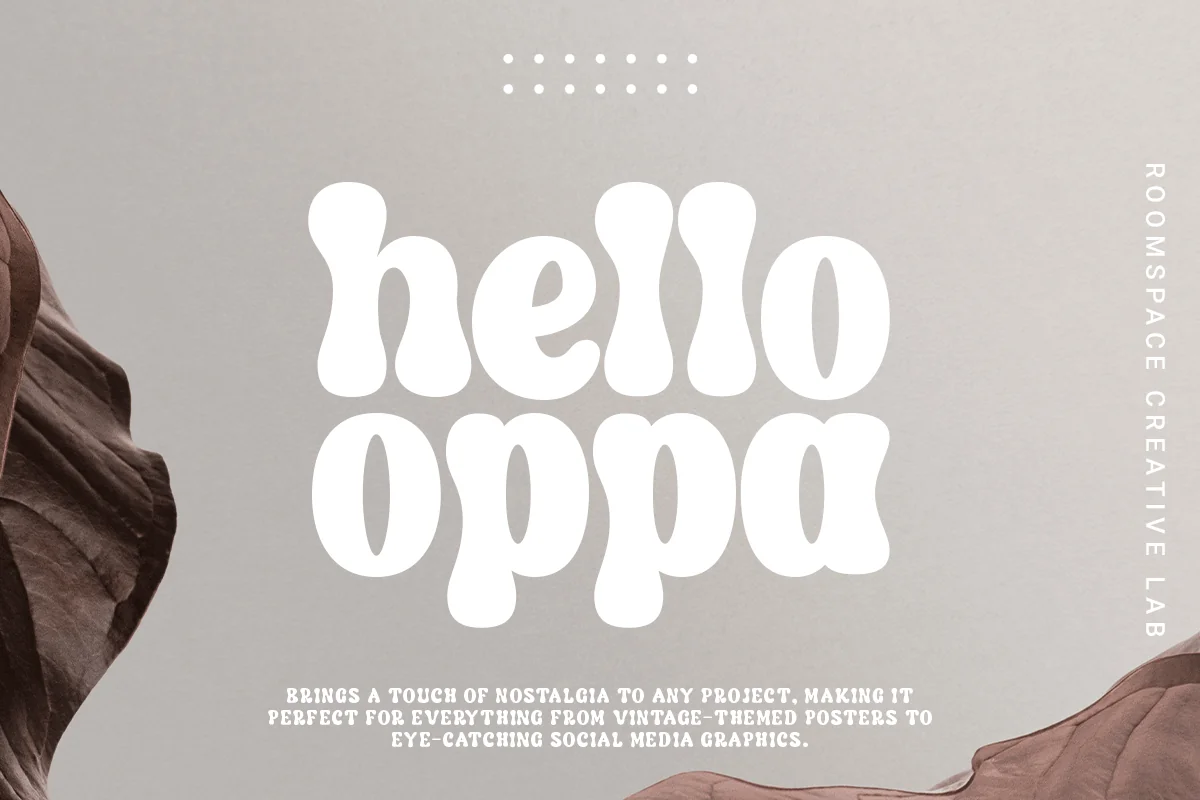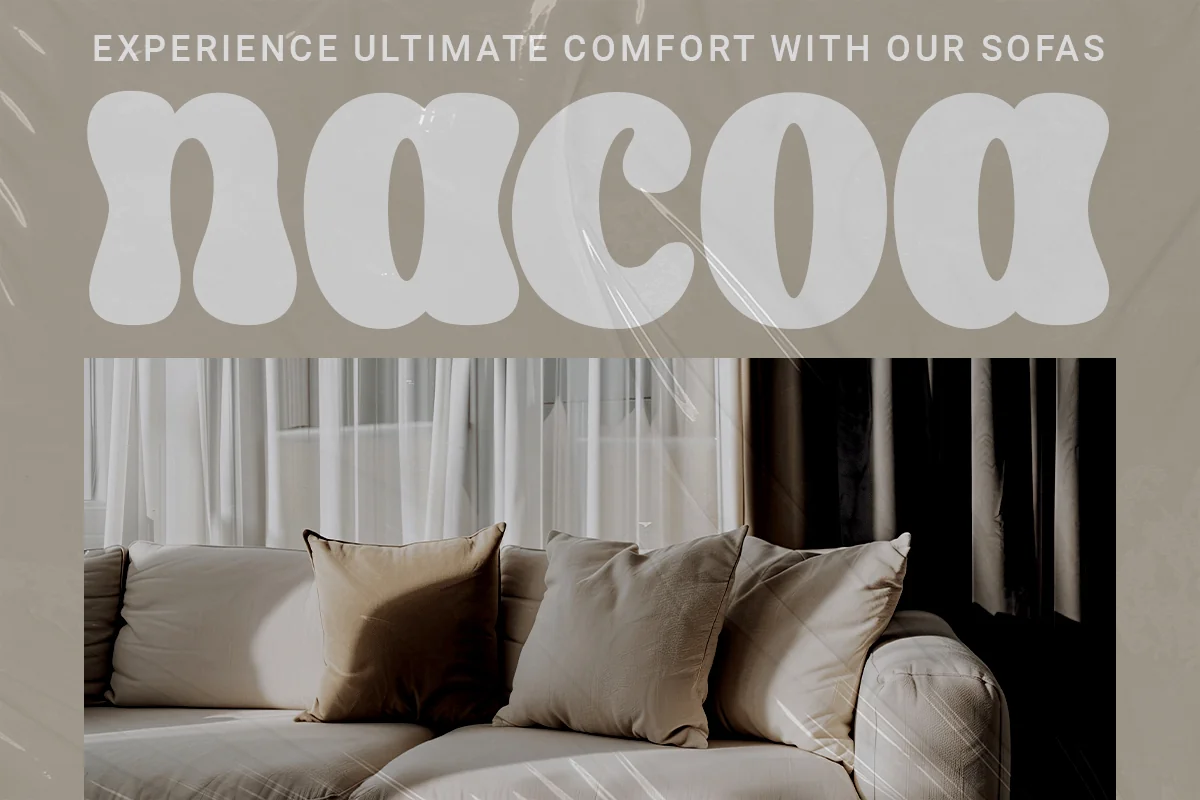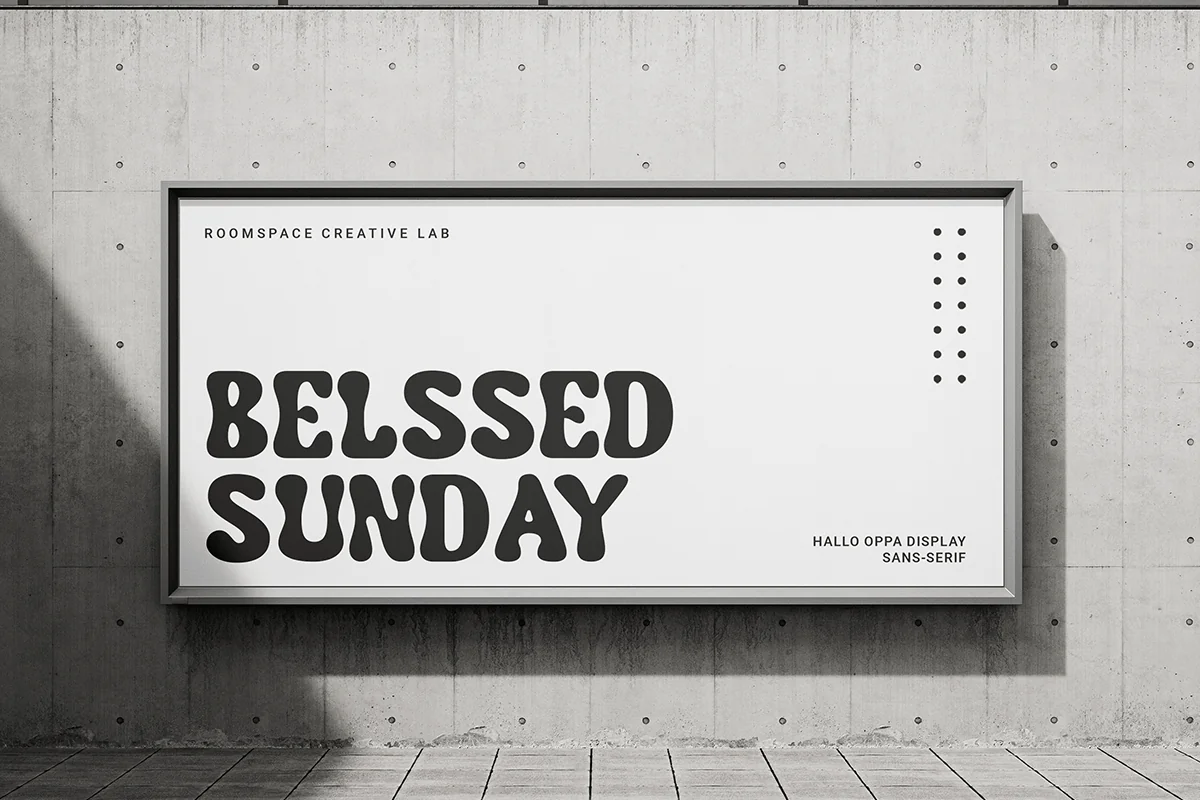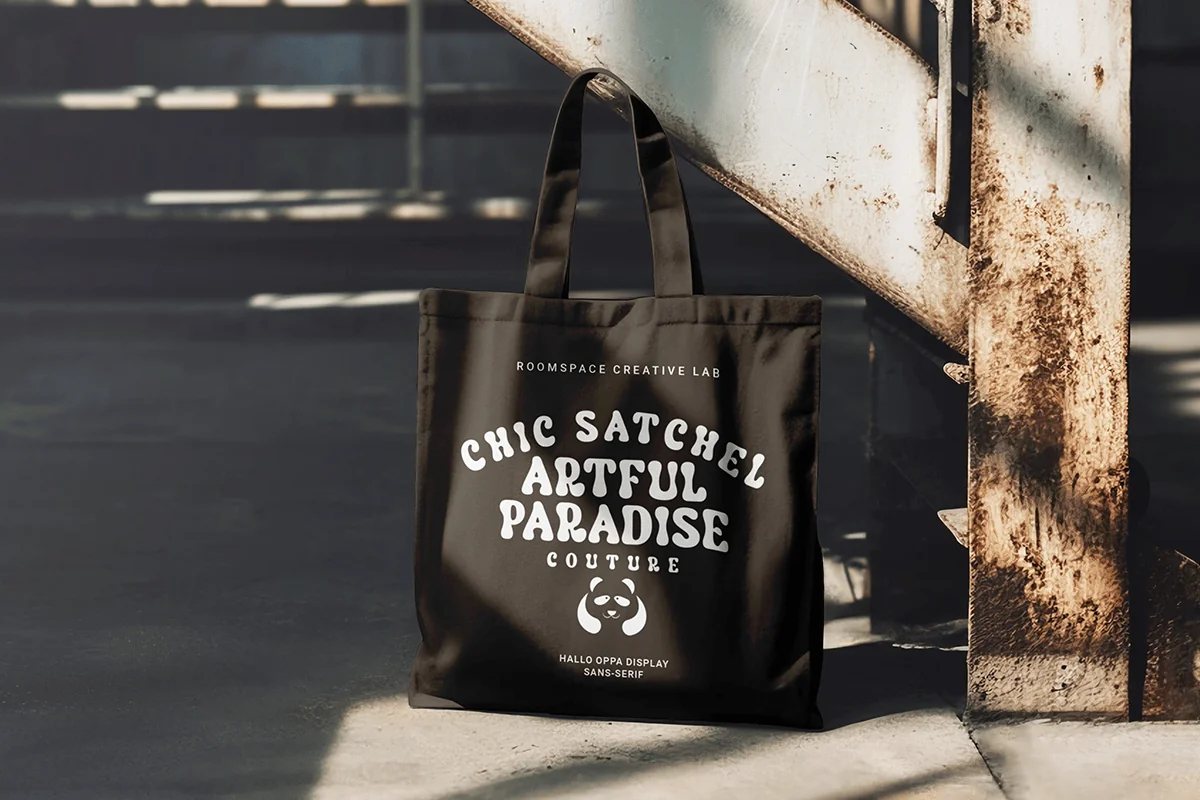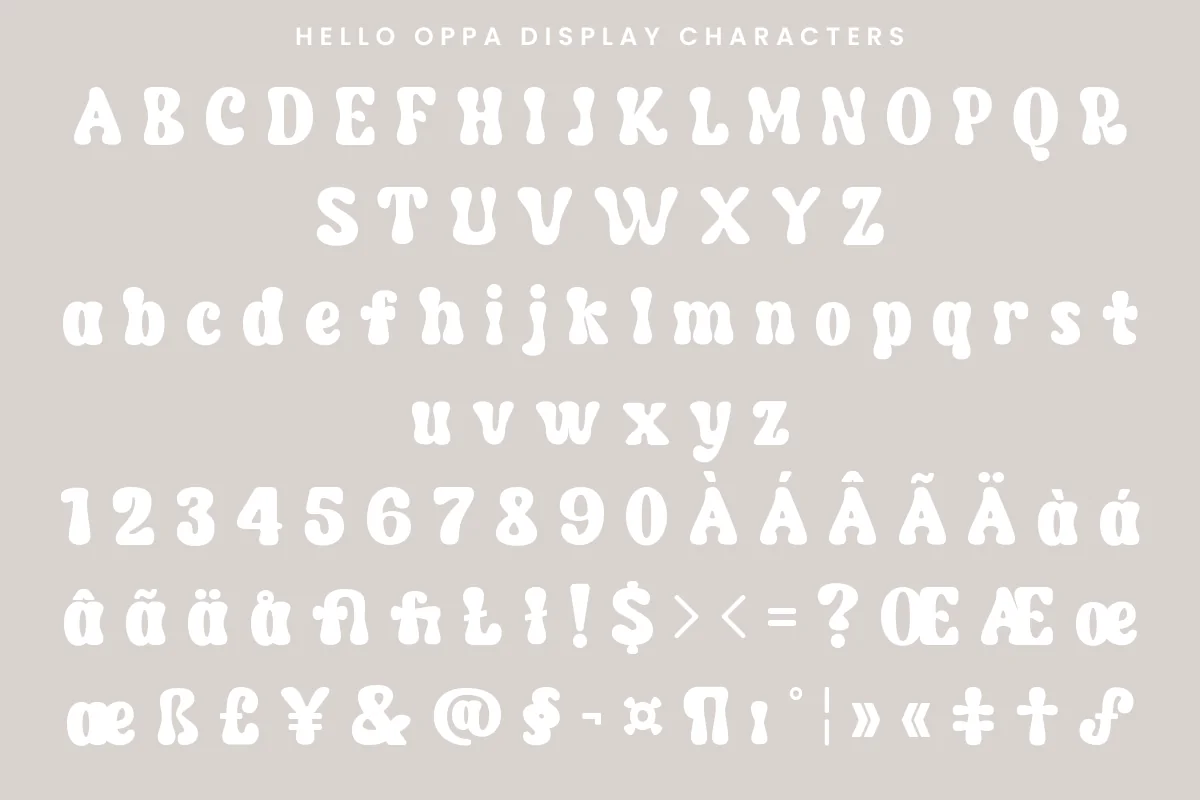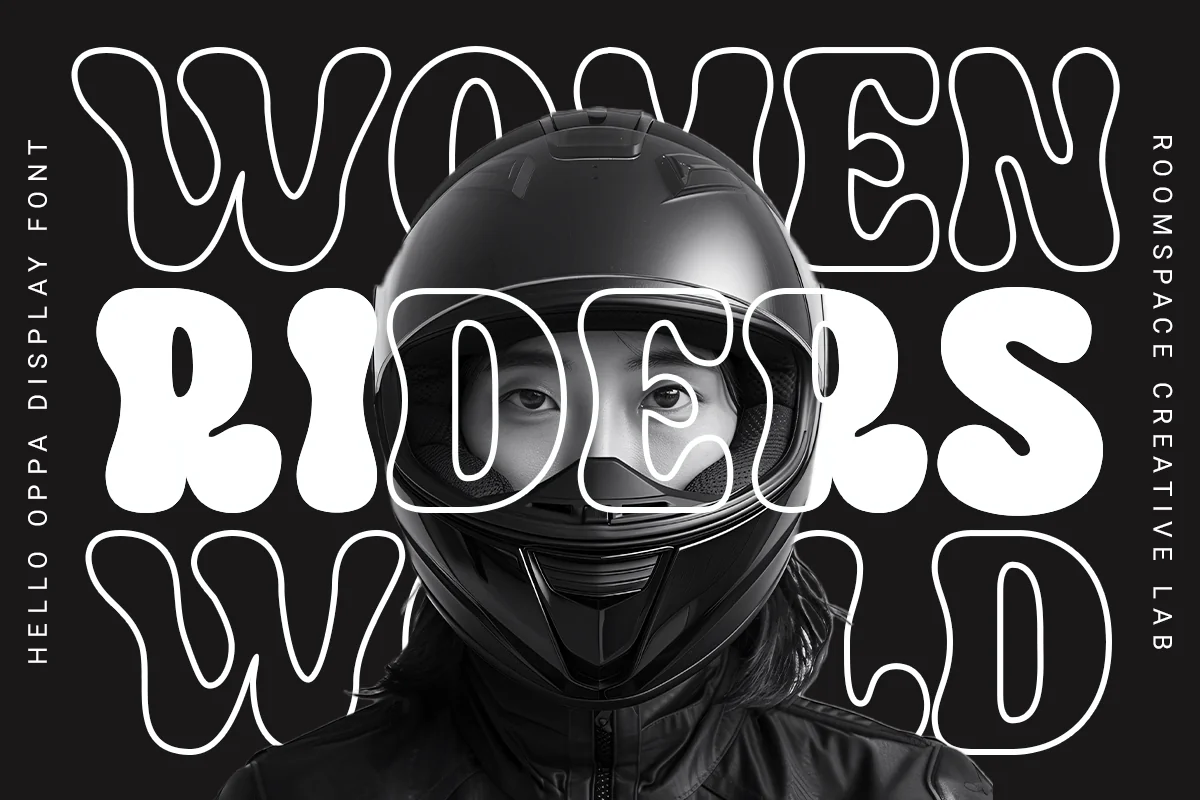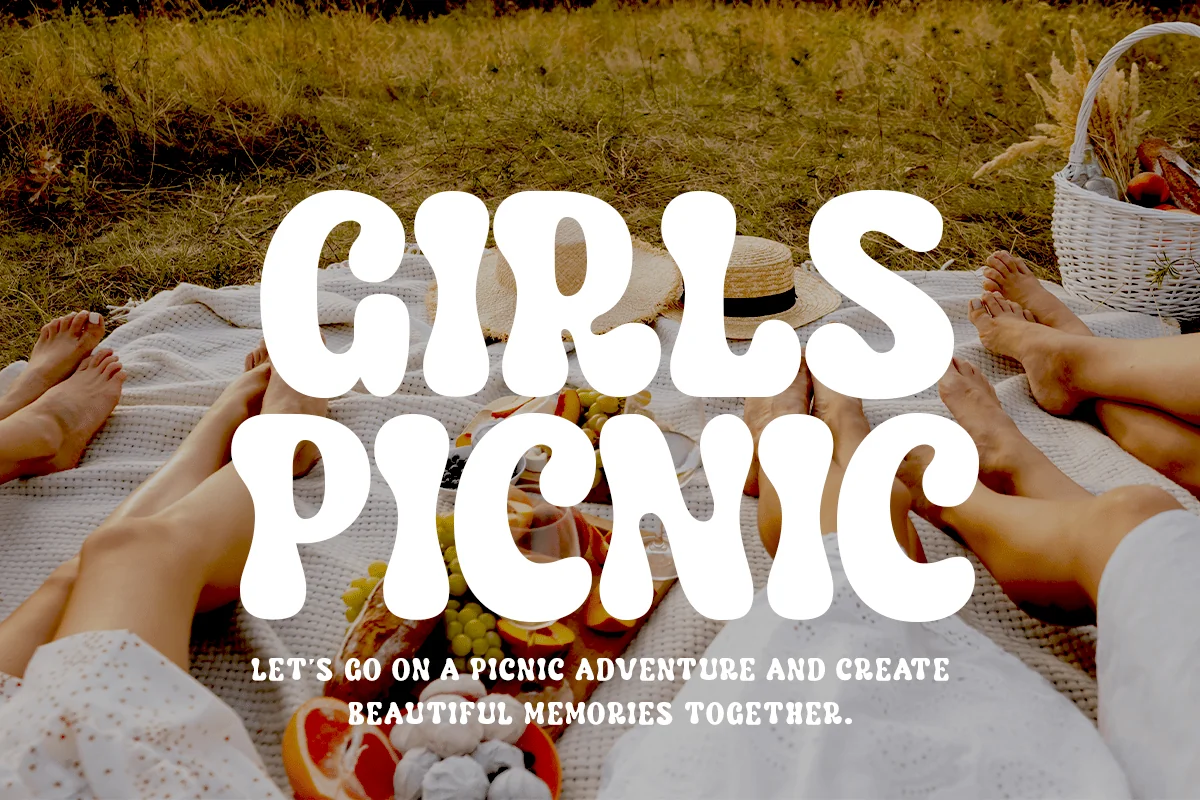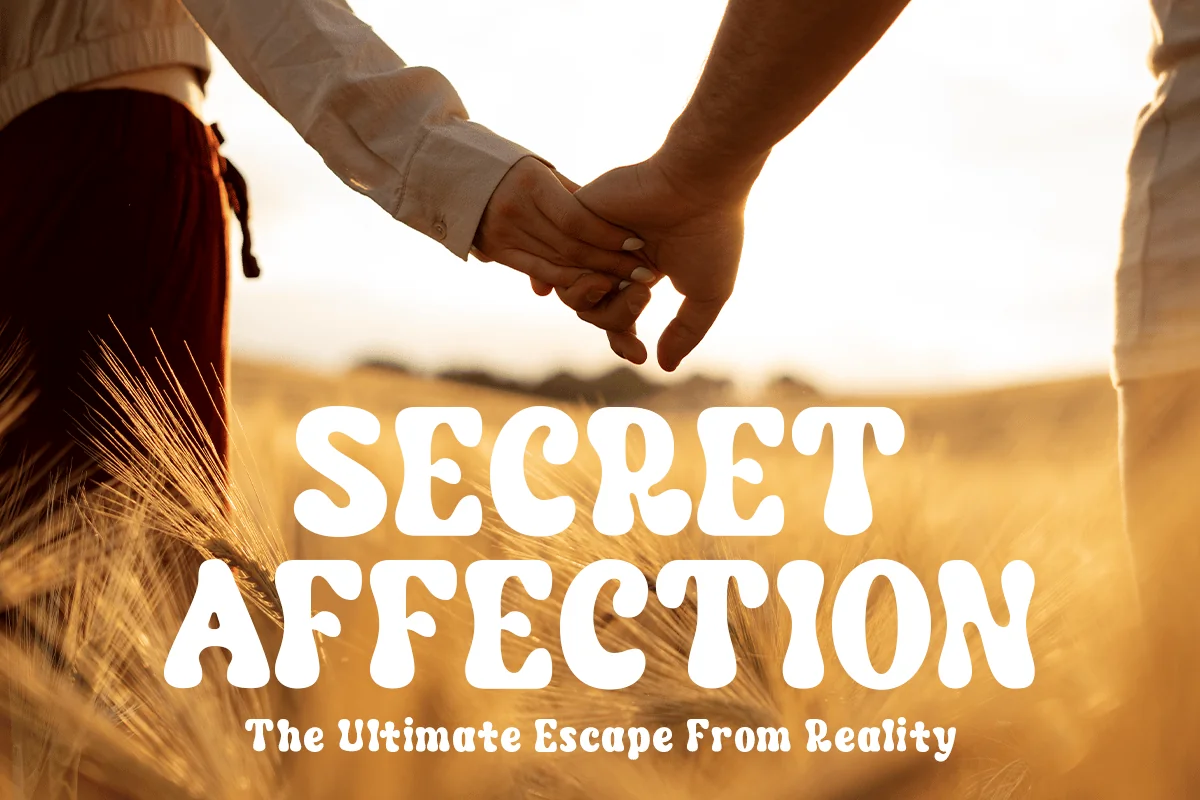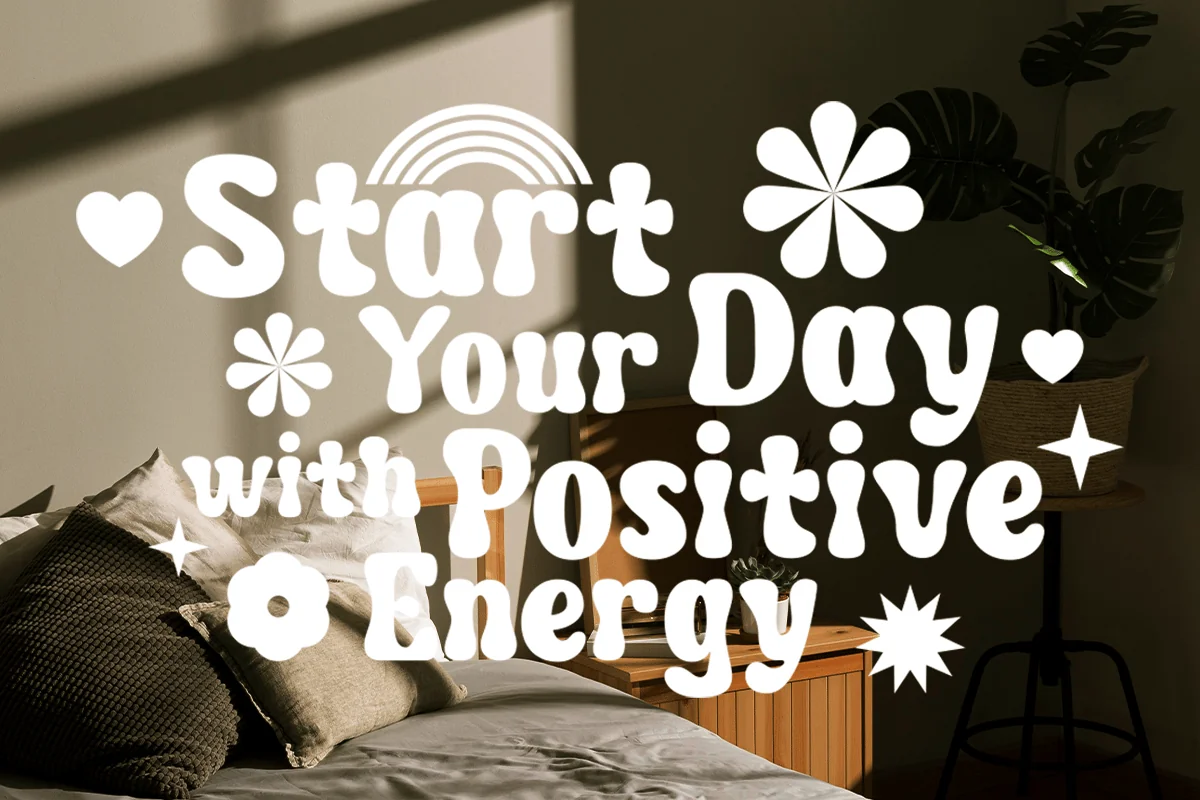
Hello Oppa – Groovy Vintage Font
Hello Oppa, a uniquely chunky and playful display font designed to make your text stand out. Whether working on a fun poster, eye-catching social media graphics, or vibrant product packaging, Hello Oppa is your go-to choice for adding a touch of whimsy and boldness. Its thick strokes and lively character make it ideal for headlines, logos, and any project that demands attention.
Hello Oppa combines modern design trends with a retro twist, making it a versatile addition to your font collection. The playful, chunky letters bring joy and nostalgia, perfect for projects that require a fun and engaging look. Hello, Oppa adapts seamlessly from children’s books to party invitations, providing a distinctive style that resonates with audiences of all ages.